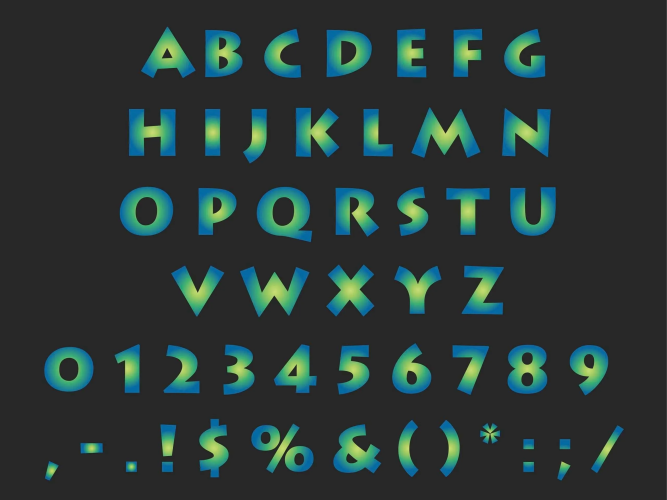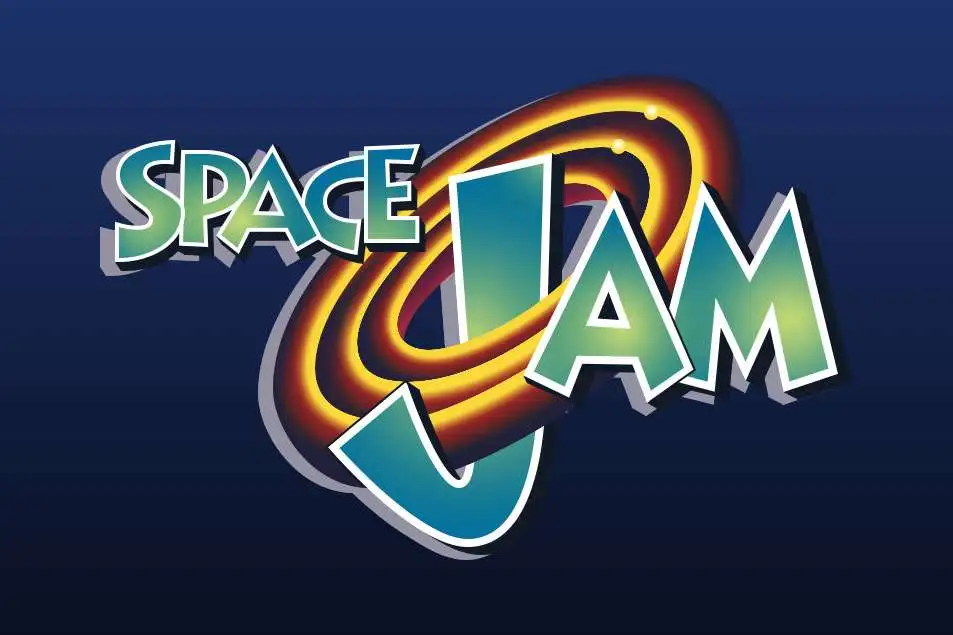
Space Jam Font
The Space Jam font is a special and popular typeface associated with the legendary 1996 movie Space Jam, a live-action/animated sports comedy featuring Michael Jordan and the Looney Tunes. This font is characterized by its intrinsic connection with the goods and services of the film’s branding and advertising. It has now turned out to be an icon, which is sentimental to fans of the movie and is generally used as branding in merchandise, ad campaigns, etc., and fan creations as well.
Space Jam font, endowed with tall, strong and vibrant consistency, perfectly illustrates the movie’s energetic and larger-than-life spirit. Basketball and cartoon animation made the characters’ forms, in which the lines are exaggerated and stylized, appear with sharp angles, playful curves and unique, cute details.
The original logo and creative and promotional materials in the film Space Jam were created through years of various and divergent designs, and neither were such that they not fall under a single standardized system to convey the original look and feel of the film. These fonts usually have bold letterings with a slight OK, resembling the energetic rhythm one gets by playing or seeing a basketball game.
The font plays a crucial role in the movie’s visual identity, with its logo, and is featured in title cards and the film’s movie promotions. The strikingly creative and imaginative design of the poster surely has made its audiences never forget it, and its power to memorize is probably as remarkable as the character.
One extension of the use of Space Jam font in the real world is its use as the official brand font and in merchandise. Additionally, as part of the film’s nostalgia, the Space Jam font has come to symbolize its fans. Many people use it when making their drawings, designs, and transformations, and they use it to show respect to the characters and memorable things from the movie.